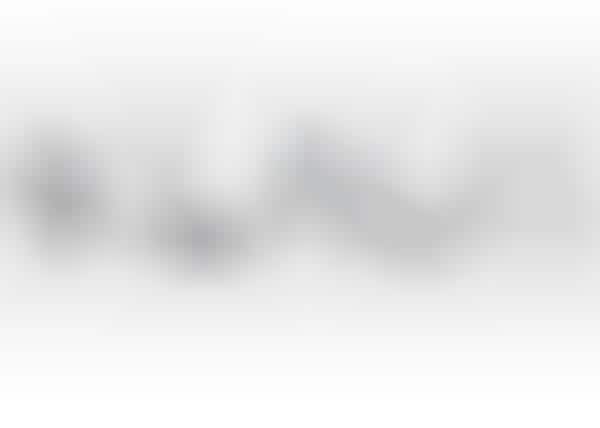
The Earring Typeface by Hjarta Smarta is proof that the art of typography is expanding every minute. As a previously understated form of design, typography is finally getting the attention it deserves. With revolutionary typefaces such as these, the Earring Typeface is leading a type revolution.
The adorable font is constructed of earrings. The little charms make for a whimsical alphabet that kicks Times New Roman's boring butt.
The Fierce and Functional Hjarta Smarta Earring Typeface